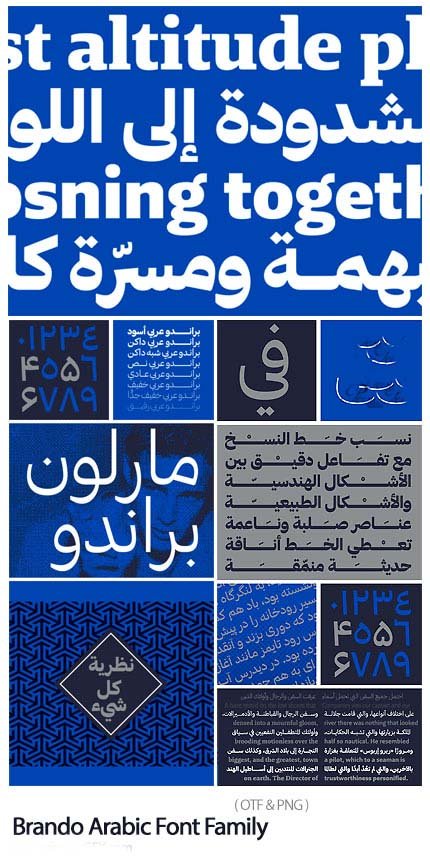
Brando Arabic Font Family
Brando is a thoughtfully crafted typeface that brings together three major Islamic calligraphic traditions with a distinctive, contemporary voice. With its strong character and cohesive design language, this multilingual font allows you to create memorable projects that flow seamlessly across Persian, Arabic, and Urdu scripts while establishing a powerful visual identity.
Persian (Farsi) Script:
- Distinctive Persian letterforms with strong personality
- Full support for Persian-specific characters (گ، چ، پ، ژ)
- Correct representation of Persian numerals
- Proper character connections and positioning
- Contemporary design with authentic foundations
Arabic Script:
- Coordinated Arabic design matching Persian style
- Complete Arabic character set
- Full support for Arabic diacritics and marks
- Harmonious weight and proportion
Urdu Script:
- Proper Urdu character set including specific letters
- Support for Urdu numerals and punctuation
- Correct representation of Nastaliq-influenced forms
- Seamless integration with Persian and Arabic
- Brand Identity: Create memorable, distinctive brand identities
- Logo Design: Powerful wordmarks with strong character
- Packaging: Standout product design for regional markets
- Advertising: Campaigns with distinctive visual voice
- Corporate Communications: Professional materials with personality
- Website Design: Memorable digital experiences
- Social Media: Engaging content that stands out
- Print Materials: Brochures, flyers, and publications
- Signage: Distinctive displays
- Strong Character: Distinctive design that commands attention
- Three Scripts, One Voice: Consistent brand identity across languages
- Comprehensive Support: All characters for all three languages
- Professional Quality: High-caliber font for commercial use
- Brand-Ready: Perfect for creating memorable identities
Key Features of Brando Font:
- Complete support for Persian (Farsi), Arabic, and Urdu scripts
- Distinctive, contemporary design with strong character
- Coordinated across all three languages
- Full character sets for each script
- Perfect for branding and identity projects
- Brand and identity designers
- Logo creators seeking distinctive typography
- Advertising and marketing professionals
- Packaging designers for regional products
- Corporate communications teams
- Anyone needing strong, memorable multilingual typography